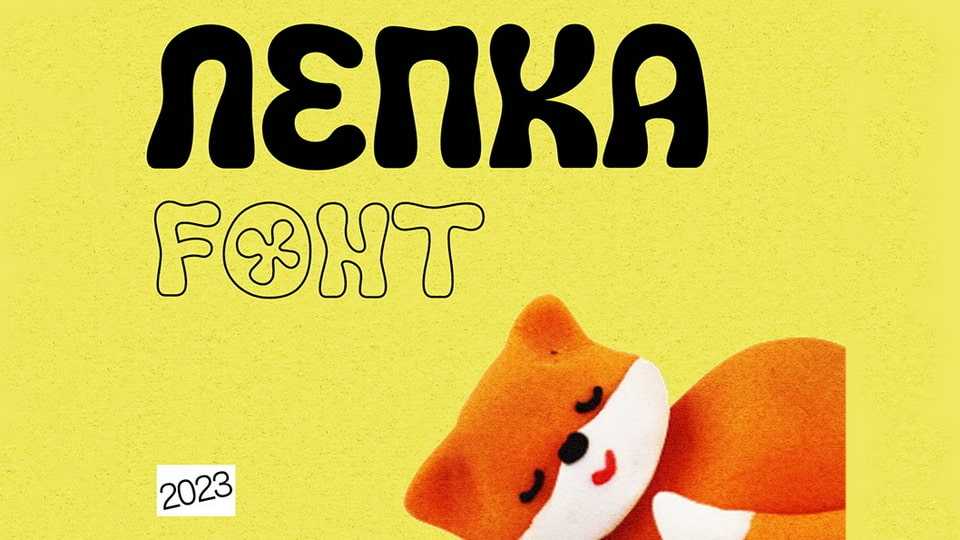
Download Lepka font, a typeface that brings the kindness and playfulness of childhood to every letter. Lepka font is an ideal choice for children’s books, playful branding, or any design that aims to evoke a lighthearted and approachable vibe.